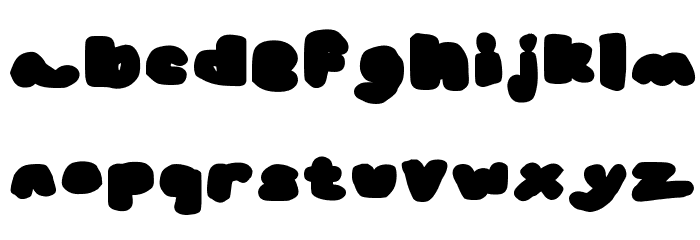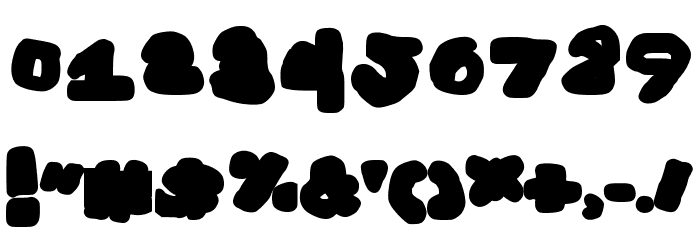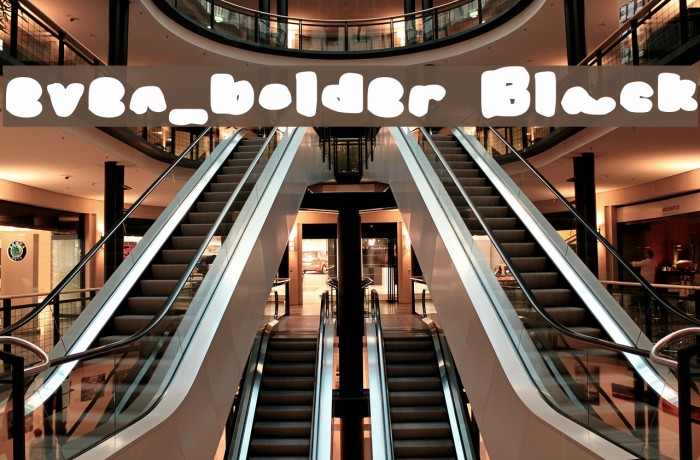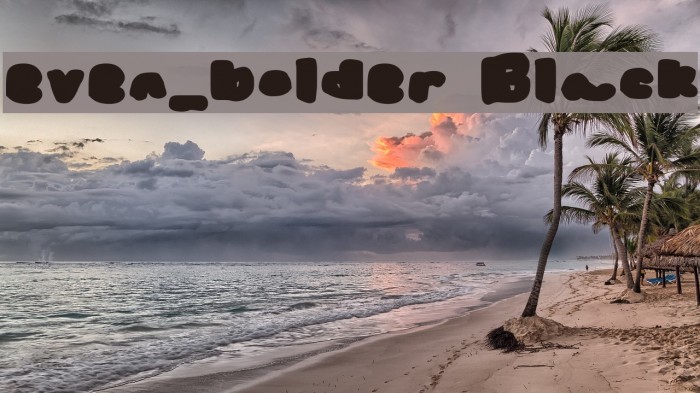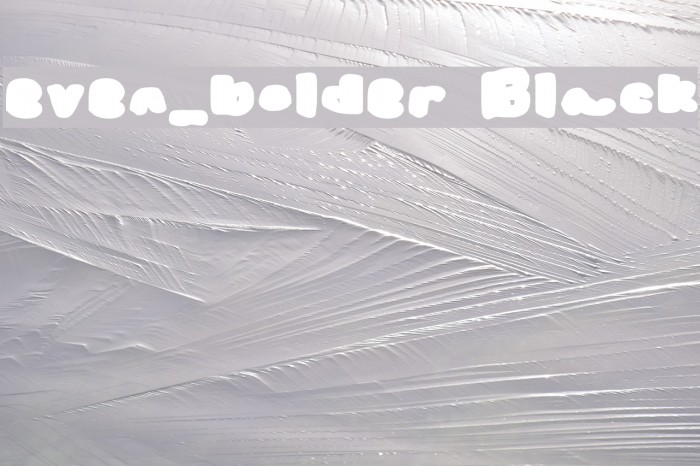
even_bolder Black Font
This font is characterized by its extremely bold and rounded letterforms, creating a playful and eye-catching appearance. The letters are heavily weighted, with thick strokes and minimal contrast, giving them a solid and robust feel. The shapes are smooth and slightly irregular, adding a whimsical touch to the overall design. The font maintains consistent thickness throughout, with wide character spacing that enhances readability despite its boldness. Its unique style makes it stand out, suitable for designs that require a strong visual impact.
A bold, rounded font with a playful and robust appearance.
- Font: even_bolder Black
- Proposed Projects: Ideal for children's books, playful branding, posters, and any design needing a strong, fun visual impact.
- Character Spacing: Wide
- Overall Style: Playful, Bold, Decorative